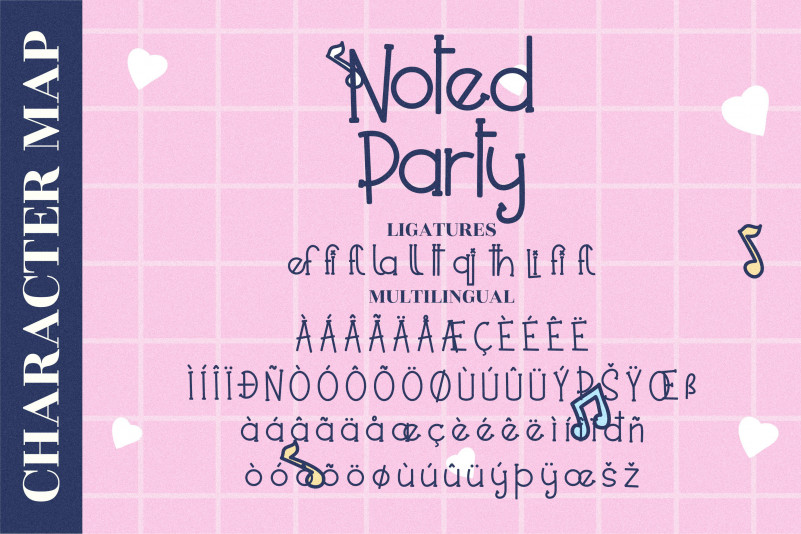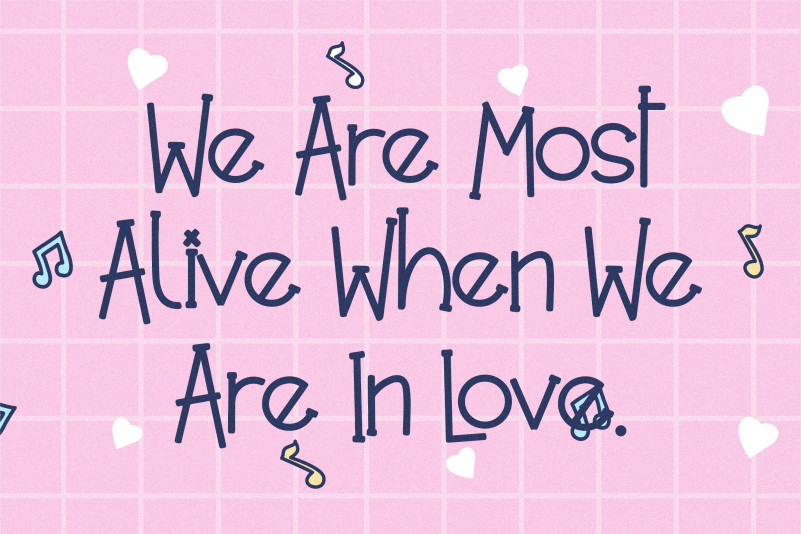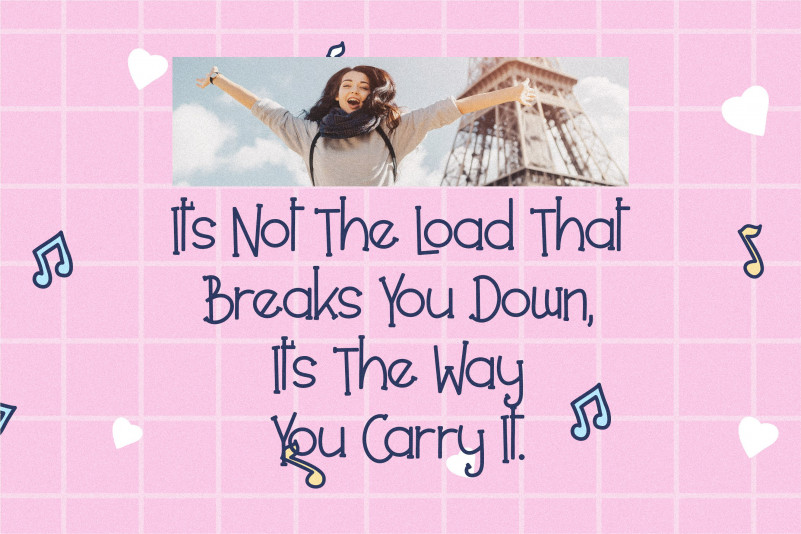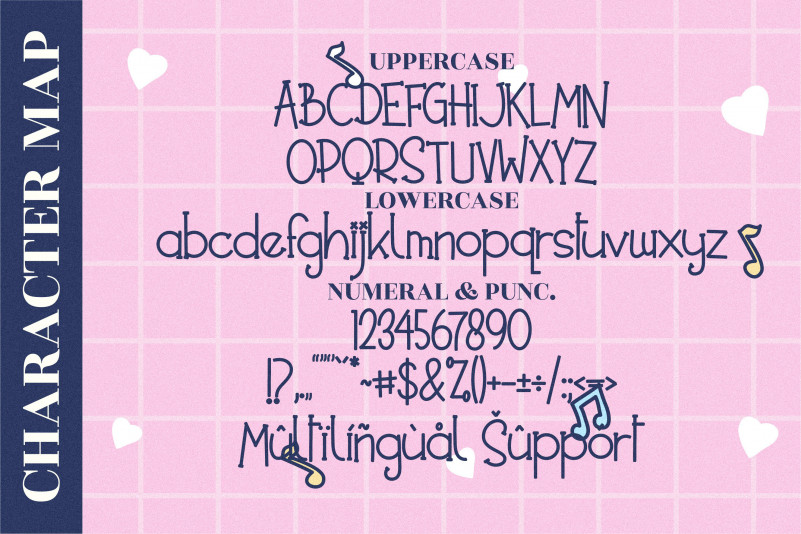
Noted Party Font
Noted Party Display Font
This is a whimsical display font with a relaxed theme, featuring a lovely style. No matter the topic, this font will be an incredible asset to your fonts’ library, as it has the potential to elevate any creation.